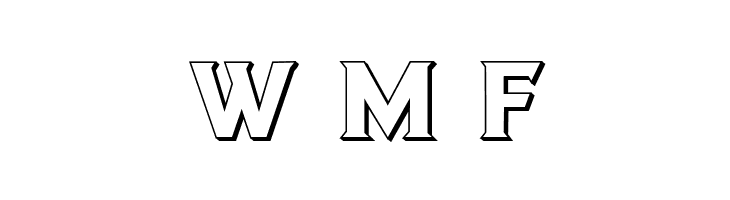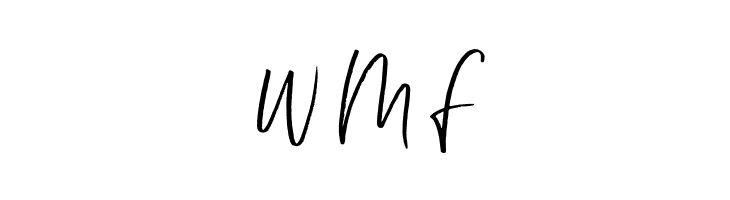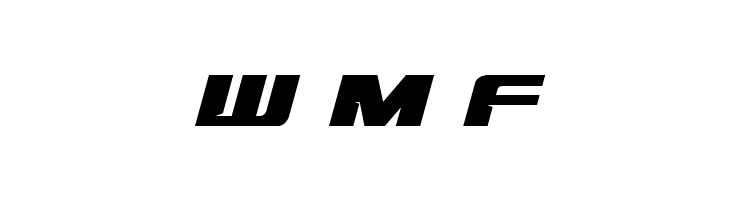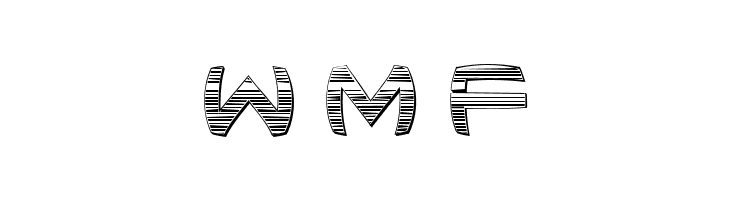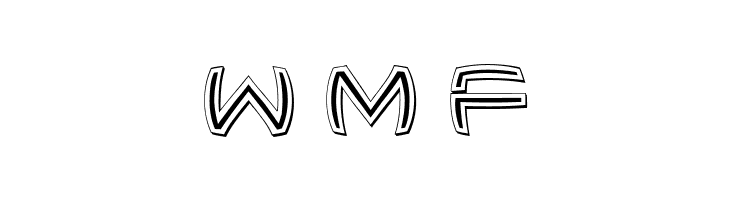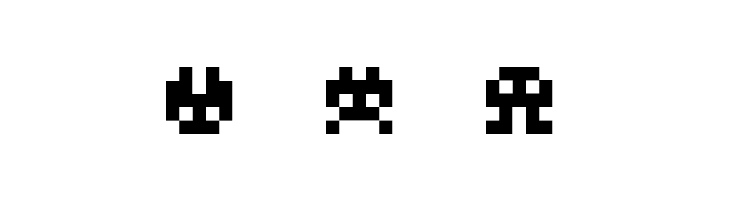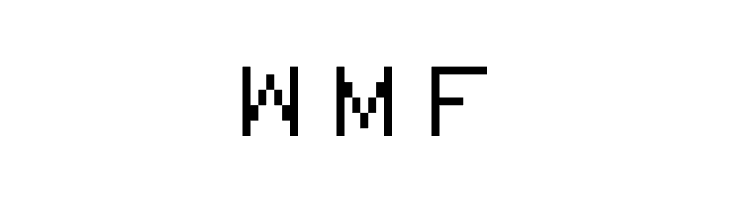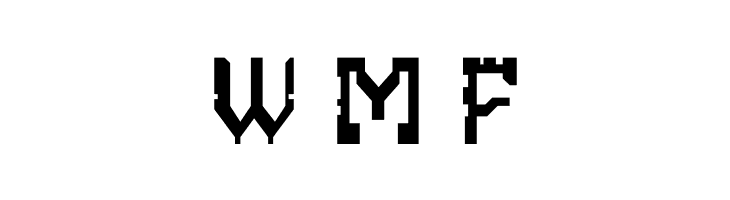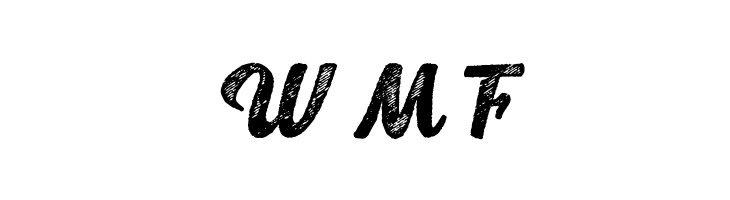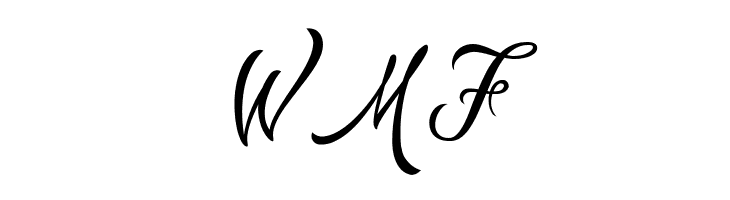
A playful and whimsical font with curly, flowing strokes and artistic flair.
A playful, handwritten font with uneven strokes and a casual style.
A playful, casual handwritten font with fluid strokes and a modern feel.
An elegant script font with flowing, cursive letterforms and medium contrast.
A pixelated, retro digital font with a blocky, grid-like structure.
A whimsical, handwritten font with elegant, slender uppercase letters and smooth, flowing lowercase characters.
A dynamic, fluid script font with a handwritten appearance.
An ornate and decorative script font with intricate swirls and flourishes.
A graceful and elegant script font with flowing, interconnected letterforms.
A bold, geometric font with a pixelated, digital aesthetic.
A bold, distressed font with a grunge, hand-painted aesthetic.
A bold, italicized script font with a textured, distressed look.
A bold, modern font with a unique outlined, three-dimensional style.
A bold, futuristic font with a three-dimensional effect and geometric design.
An artistic and decorative font with intricate flourishes and elegant strokes.
An artistic, decorative font with intricate loops and flourishes.
An illustrative display font featuring iconic sculptures as glyphs.
A pictorial display font featuring iconic sculptures as glyphs.
A bold, decorative font with a layered, three-dimensional effect.
Pixelated skulls in a retro, arcade-style design.
A playful, pixelated font with characters in square boxes, reminiscent of retro video game graphics.
An artistic display font featuring abstract human figures and faces in each character.
The image contains abstract illustrations, not a functional font.
A modern, geometric font with parallel line detailing.
A modern, edgy font with sharp serifs and geometric shapes.
A bold, angular font with a dynamic, modern style.
A bold, angular font with a dynamic and modern style.
An elegant script font with intricate, flowing letterforms and classic calligraphic style.
A bold, 3D italic font with a filled and outlined style.
A bold, 3D font with filled interiors and prominent outlines, perfect for impactful designs.
A bold, 3D italic font with outlined characters and a modern style.
A bold, 3D font with strong outlines and a modern, dynamic style.